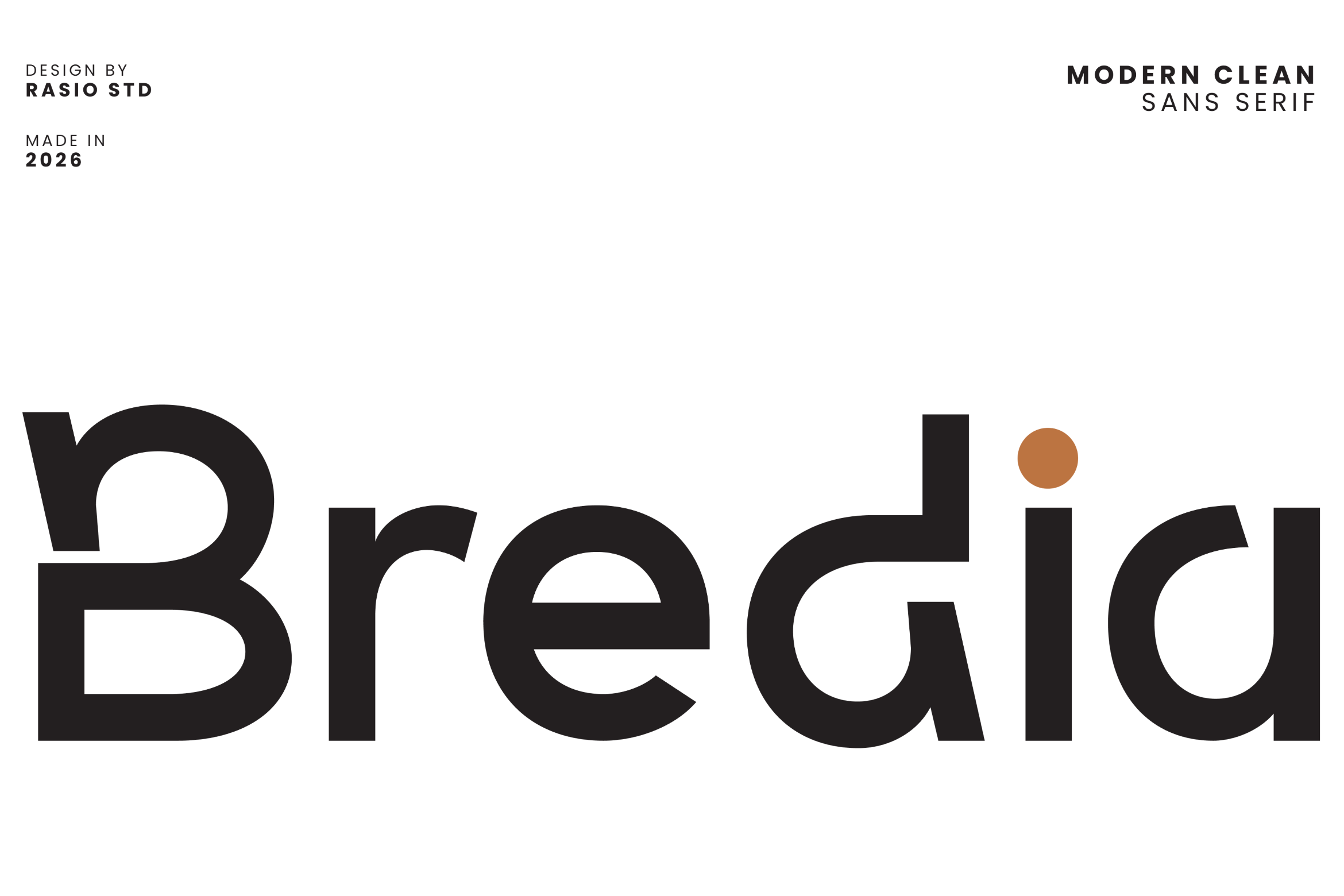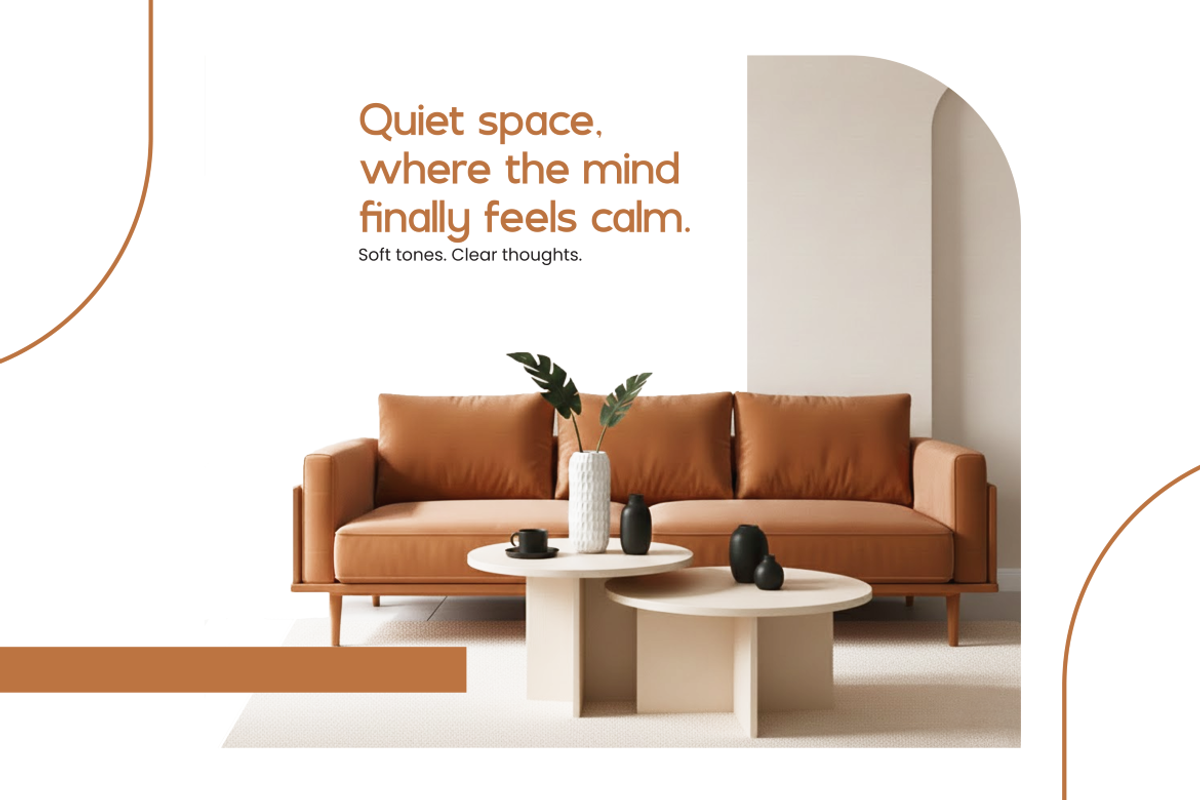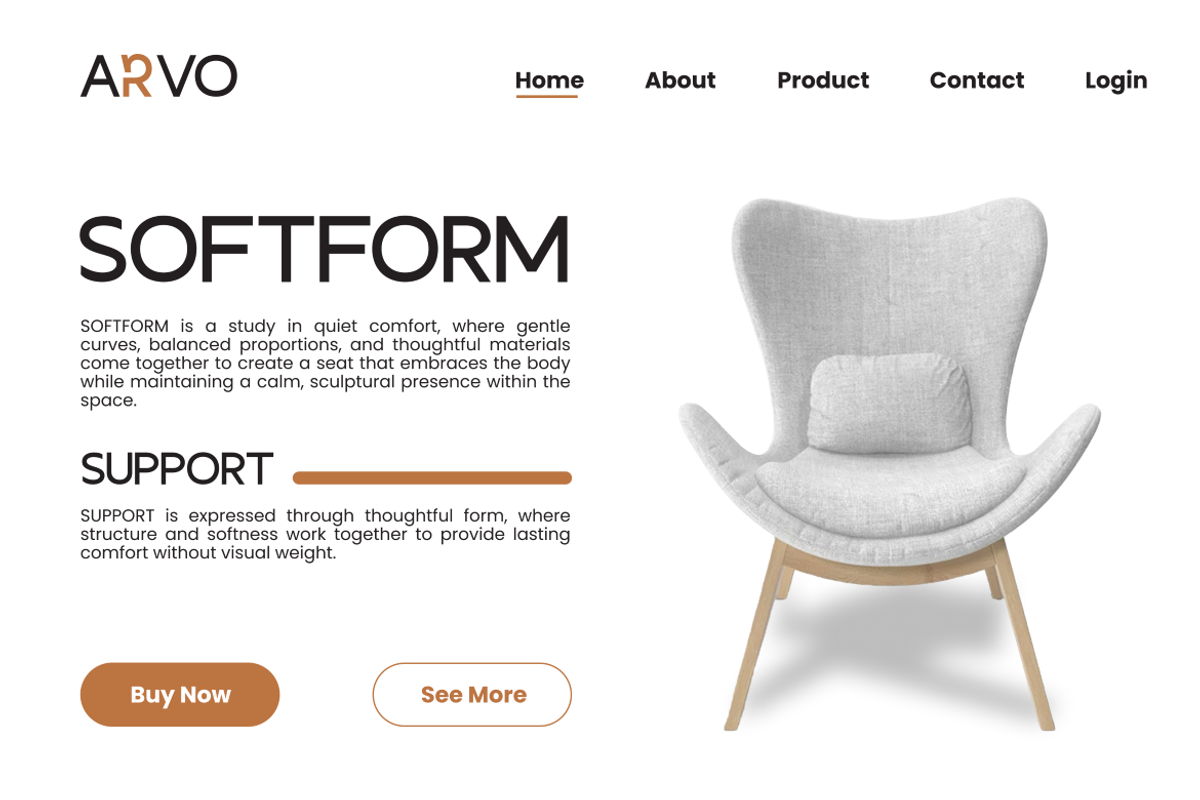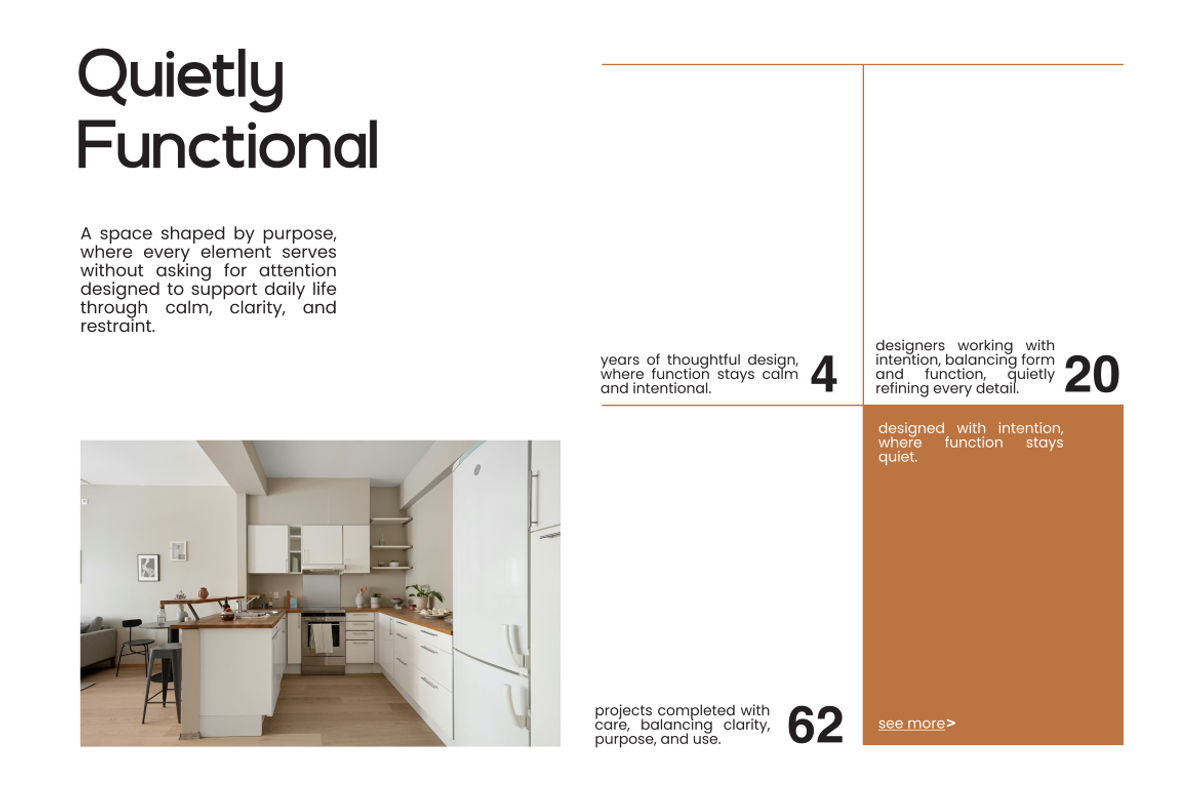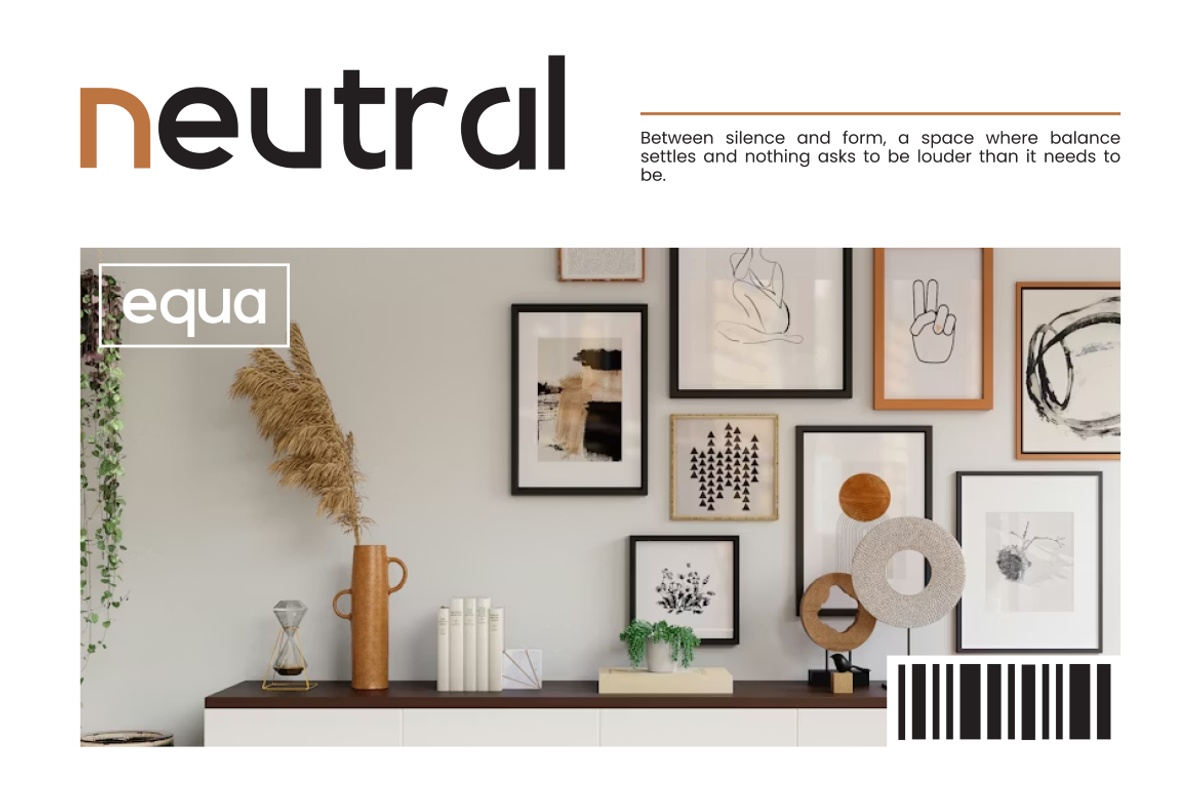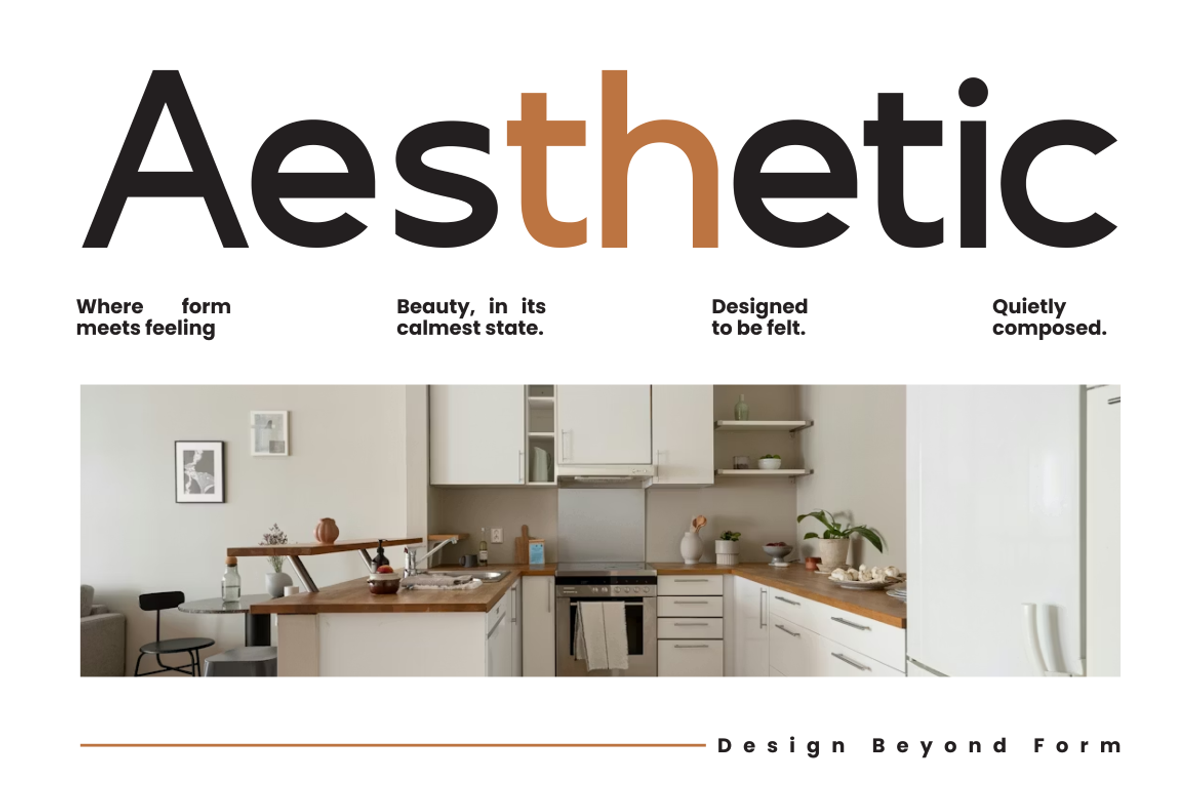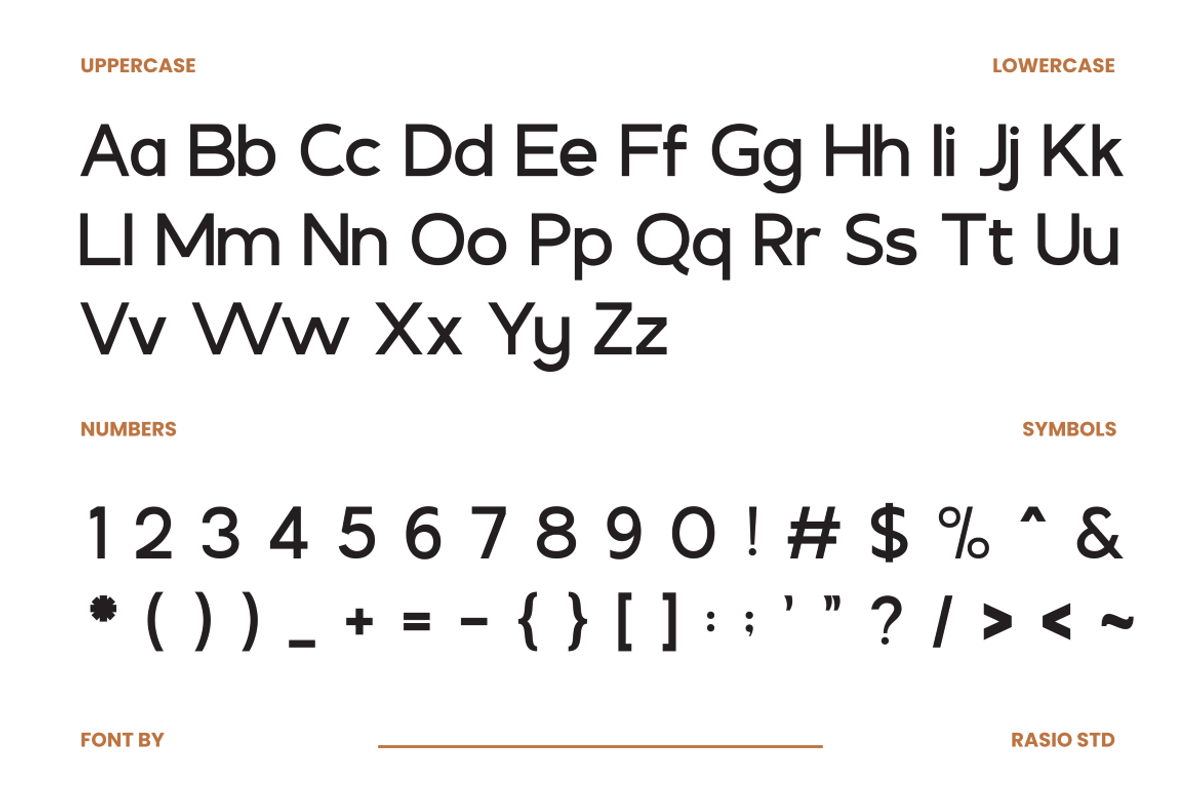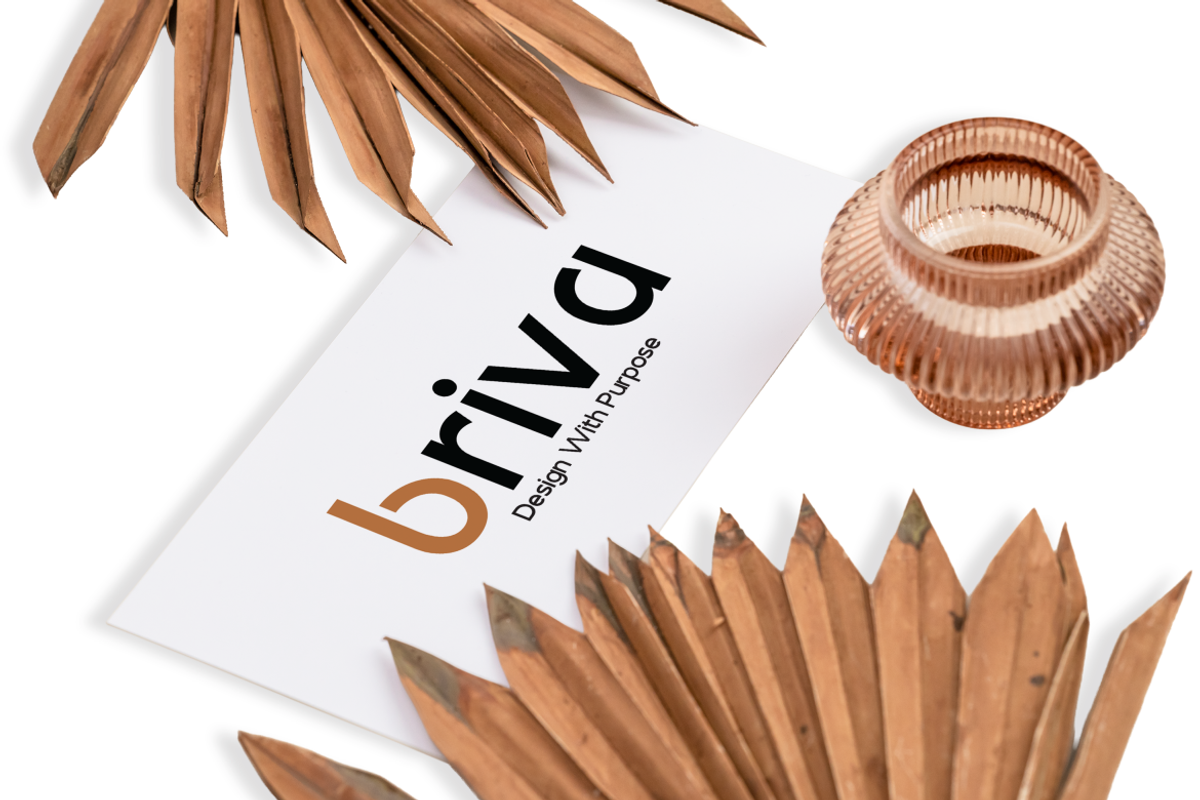
Bredia Modern Clean Sans Serif Font
Bredia is a modern clean sans serif font designed with a balanced geometric structure and minimalist character shapes. The letterforms feature smooth curves, neutral proportions, and refined stroke consistency that create a professional and contemporary visual tone. This font includes uppercase letters, lowercase letters, numerals, and a complete set of punctuation symbols, providing flexible typographic elements for various design applications.
This font is highly relevant for projects that require a modern, professional, and clean typographic style. It works well for corporate branding, business presentations, editorial layouts, website typography, marketing materials, product packaging, social media graphics, and modern design systems where clarity and minimalist aesthetics are essential.
- Clean modern sans serif structure with balanced geometric proportions
- Smooth curves and subtle humanist touches for a natural reading flow
- Minimalist letterforms with soft rounded terminals
- Consistent stroke weight for a clear and professional appearance
- Balanced spacing that supports both headline and body text readability
- Modern brand identity and corporate logo design
- UI/UX interfaces for apps, websites, and digital products
- Editorial layouts, magazines, and minimalist book design
- Clean product packaging and contemporary label design
- Social media graphics and modern marketing materials
Bredia let your message stand out with clean modern clarity